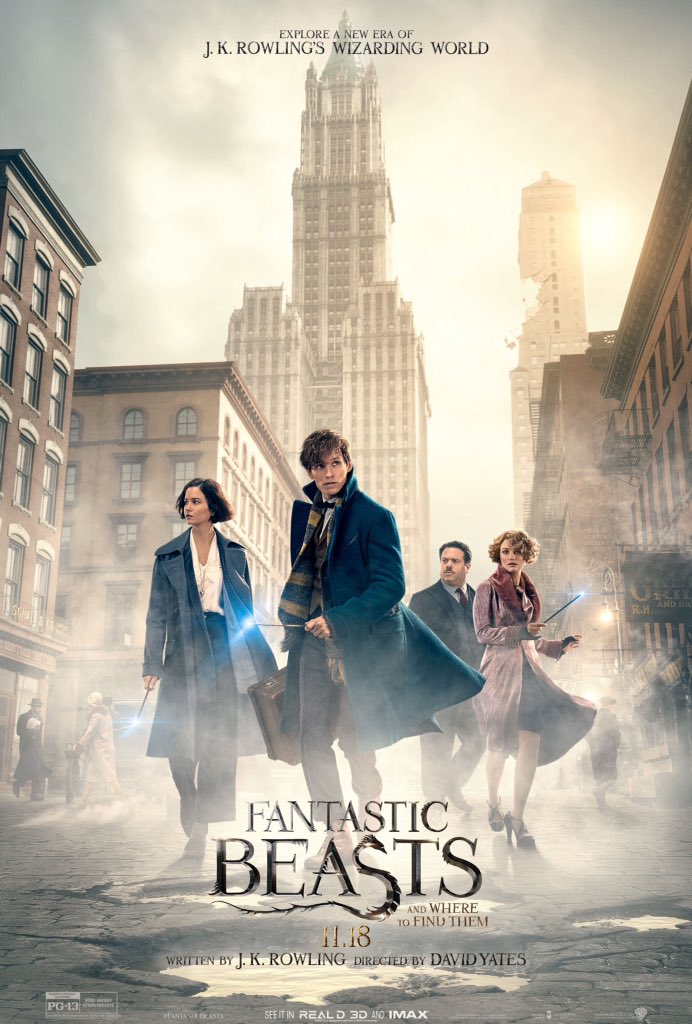
Fantastic Beasts Font
AdventureFantastic Beasts and Where to Find Them is a film series based on the adventures of Newt Scamander, a magizoologist who travels the world to study and document magical creatures, in a wizarding World created by J.K. Rowling.
The film title "Fantastic Beasts" is based on a font similar to Animales Fantastic created by Franco Alejo Fernández from Argentina. It is available for free download, but only for personal use.